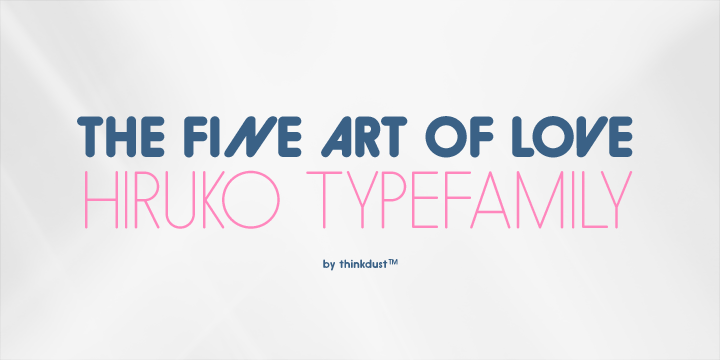
Hiruko Font is perfect for Japanese cultural center branding, anime convention graphics, manga publication layouts, sushi restaurant signage, martial arts dojo materials, Japanese garden displays, zen meditation center designs, traditional tea ceremony programs, Japanese calligraphy workshops, Asian cultural festivals, and any project that requires authentic Japanese character with traditional Eastern sophistication.
What makes Hiruko Font exciting is its beautiful embodiment of Japanese aesthetic principles and cultural harmony through elegantly balanced letterforms that capture the essence of traditional Japanese design philosophy and modern functionality. This sophisticated typeface features clean geometric characteristics with Japanese-inspired proportions that convey tranquility, precision, and respect for cultural heritage. The font's Japanese character adds instant cultural credibility and Eastern appeal to any design, making it perfect for brands celebrating Japanese culture and Asian aesthetic values.
Hiruko Font comes in multiple font families including Regular, Bold, Light, Condensed, Traditional, and Zen variations, providing designers with comprehensive options to create Japanese compositions and achieve the perfect Eastern aesthetic for culturally-focused design projects.
Whether you're developing Japanese cultural branding, creating Asian heritage materials, or designing Eastern philosophy campaigns, Hiruko Font Free Download offers the perfect solution for projects demanding authentic Japanese character and cultural sophistication. This harmonious typeface excels in both print and digital applications where cultural presence is essential, ensuring your designs communicate Japanese aesthetic values and Eastern cultural respect. The balanced character and Japanese styling of Hiruko Font make it an indispensable tool for designers who prioritize Japanese culture, Eastern philosophy, and Asian aesthetic traditions in their typographic selections.